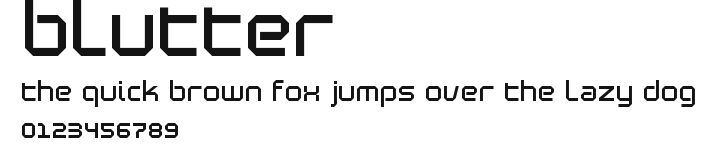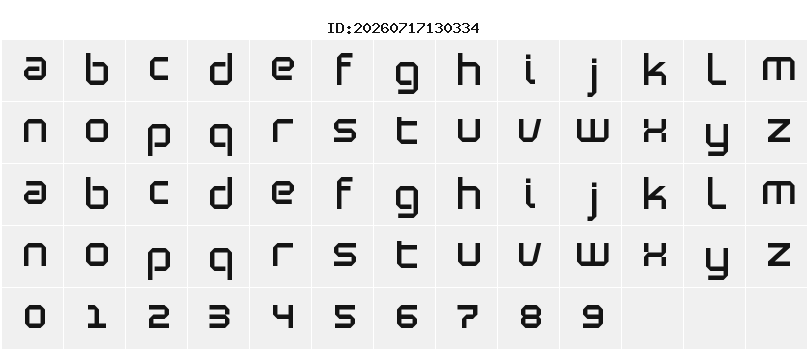
Blutter Preview
About Blutter.ttf
Blutter.ttf is a modern, elegant sans-serif font designed for ultimate readability and visual harmony. Perfect for branding, headlines, web design, and print materials.